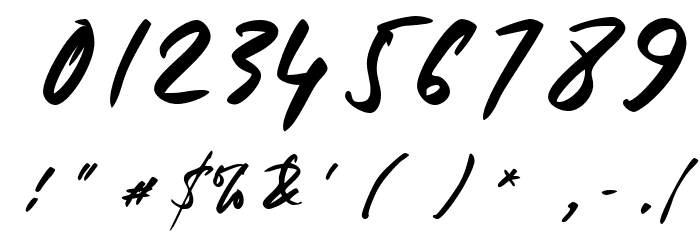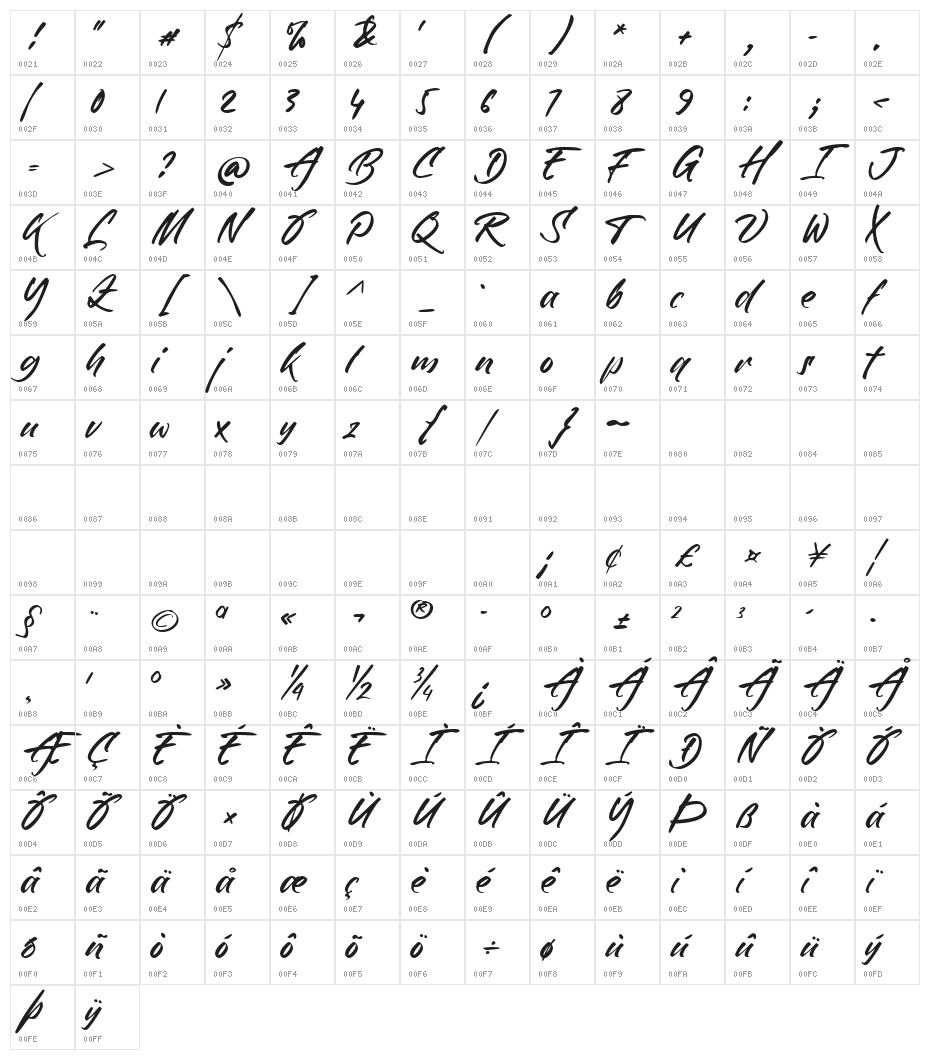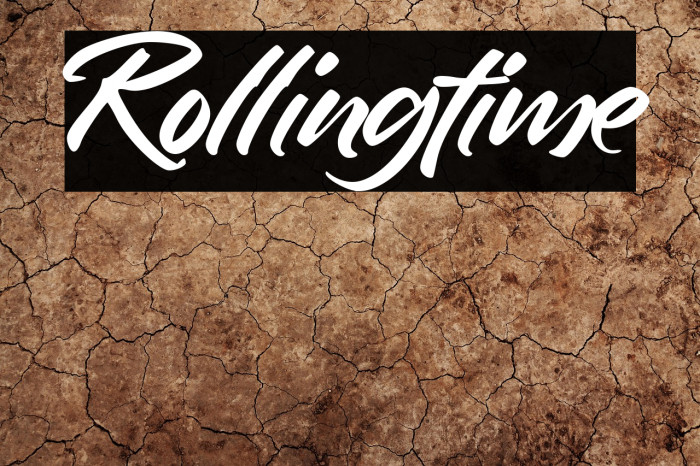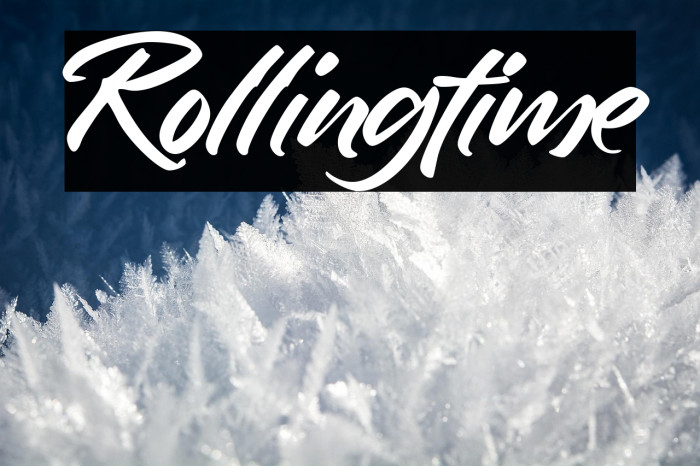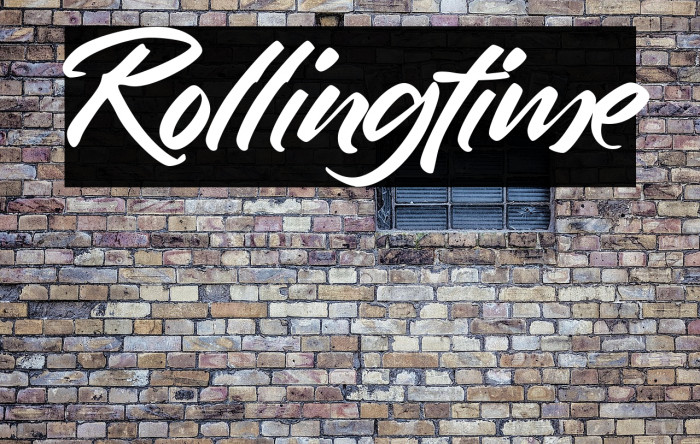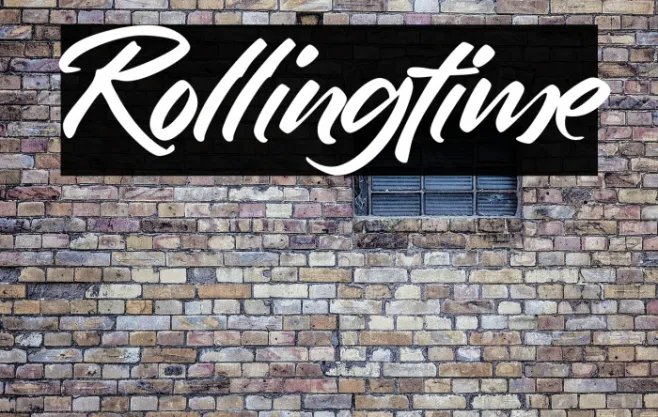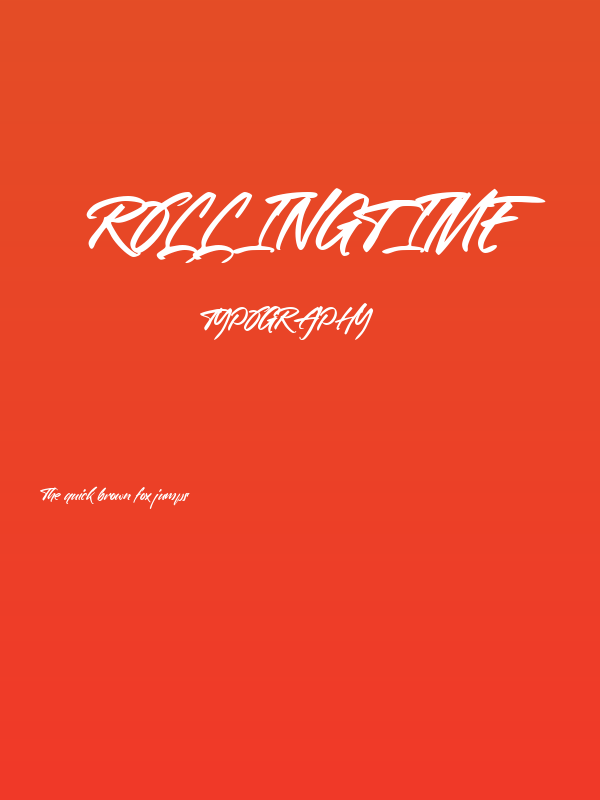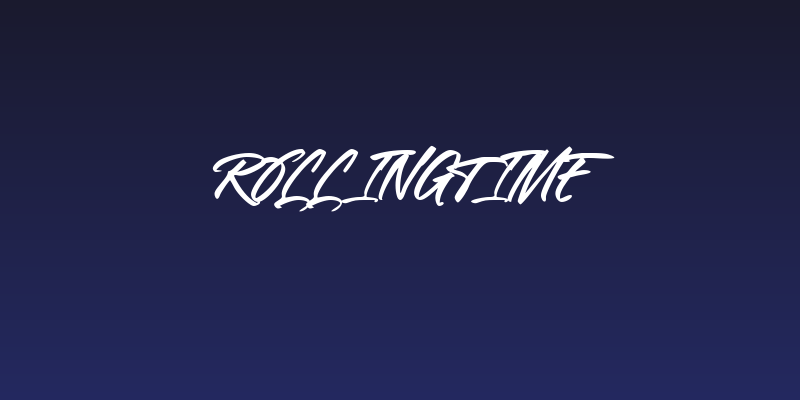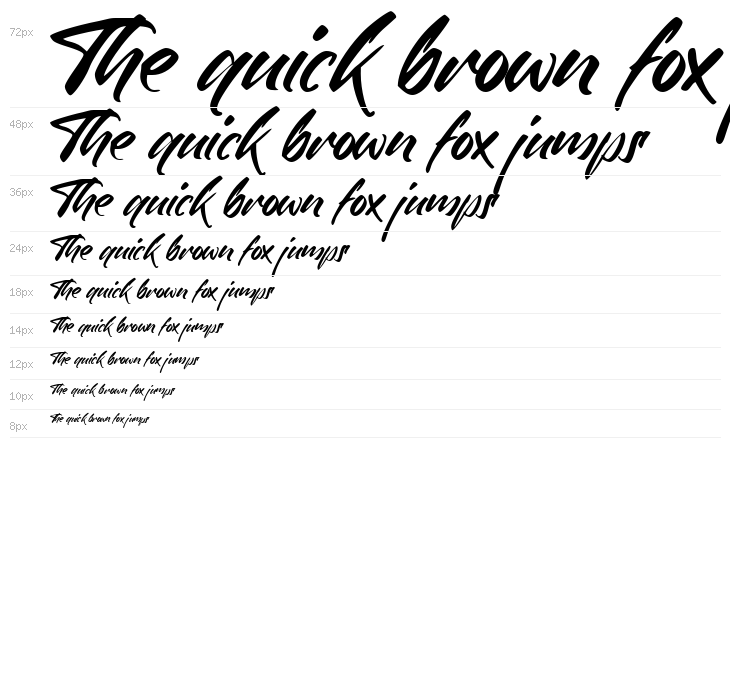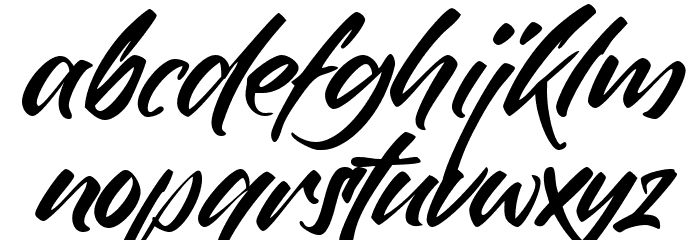
Rollingtime Font
Rollingtime Description
This font exhibits a dynamic and expressive handwritten style, characterized by its fluid and cursive letterforms. The strokes are bold and confident, with a slight slant that adds to its energetic appearance. The uppercase letters are elegantly crafted with sweeping curves, while the lowercase letters maintain a consistent flow, enhancing readability. The numerals and special characters are designed to complement the overall aesthetic, ensuring a cohesive look. This font's lively and artistic nature makes it suitable for creative projects that require a personal touch.